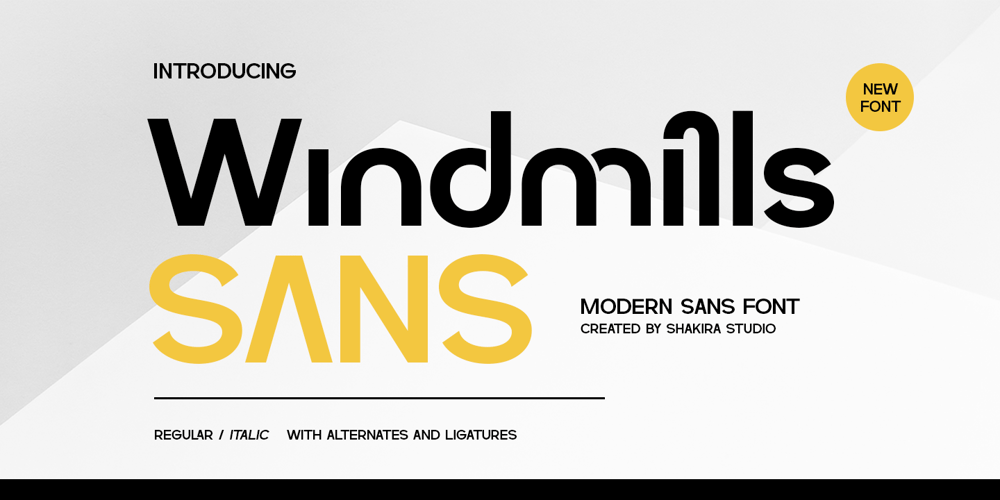
Windmills Font Family was designed by Idhham Cholid Rikzano Yahya and published by Shakira Studio. Windmills contains 2 styles and family package options. “Windmills is a Modern Sans Serif font designed for elegance and simplicity in one package. Available in regular and italic versions, this font offers great flexibility for a variety of design applications, from branding to editorial. Equipped with stylish alternates and ligatures, Windmills brings a subtle contemporary touch to any of your design projects.”Here’s what you get: Regular & Italic All Multilingual symbol Opentype features ( ligature, alternate ) Accessible in the Adobe Illustrator, Adobe Photoshop, Adobe InDesign, even work on Microsoft Word. PUA Encoded Characters – Fully accessible without additional design software. Multilingual character supports : (Afrikaans, Albanian, Catalan, Croatian, Czech, Danish, Dutch, English, Estonian, Finnish, French, German, Hungarian, Icelandic, Italian, Lithuanian, Maltese, Norwegian, Polish, Portuguese, Slovenian, Spanish, Swedish, Turkish, Zulu)Thank you!Shakira Studio